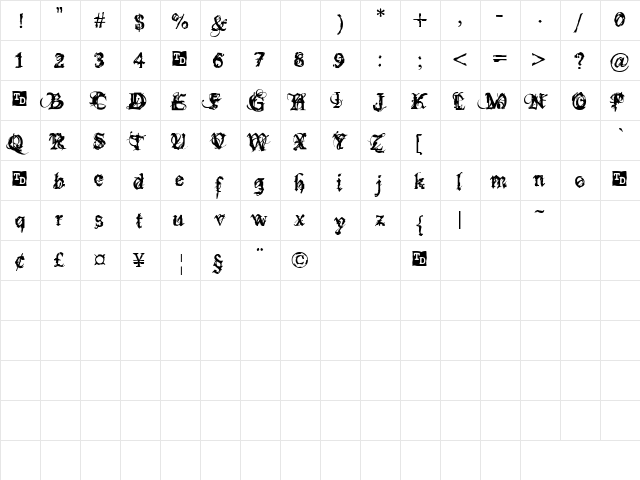
Bokonon Trial Version Regular
Design Context for Bokonon Trial Version Typeface
Bokonon Trial Version is a composed and adaptable typeface that performs quietly and consistently across a wide range of design contexts.